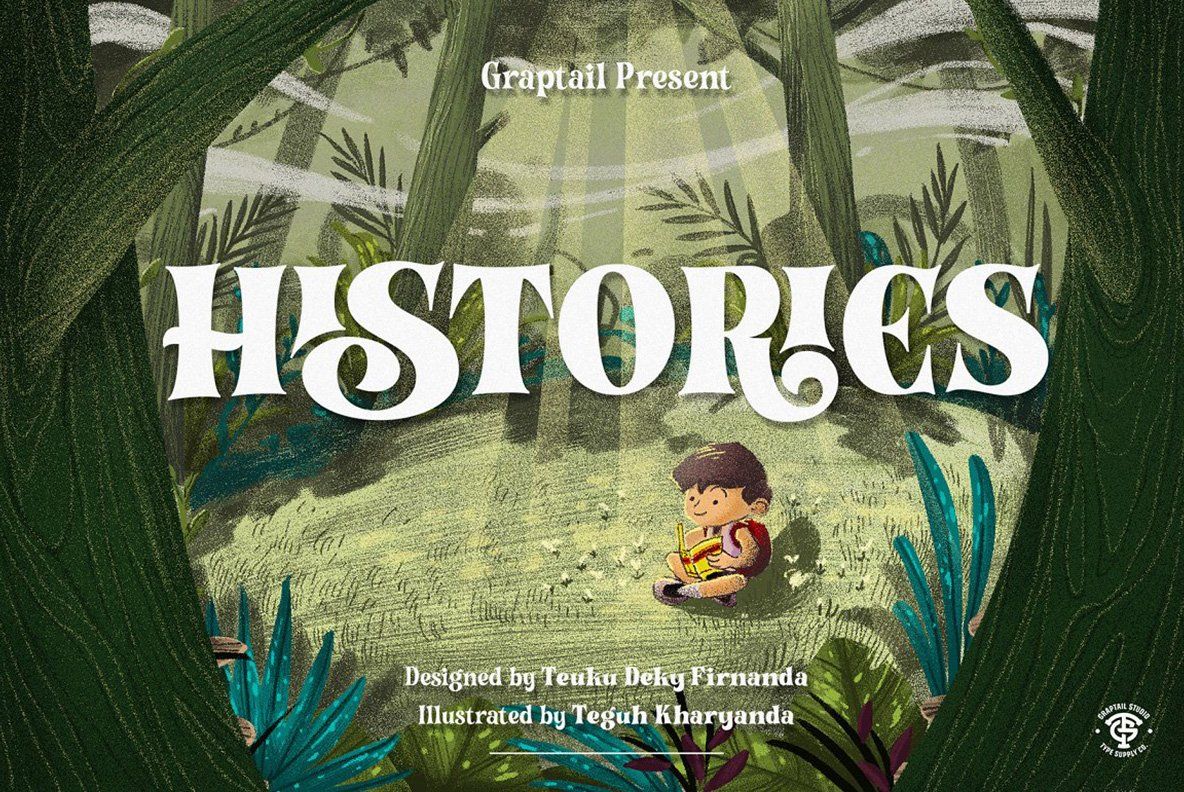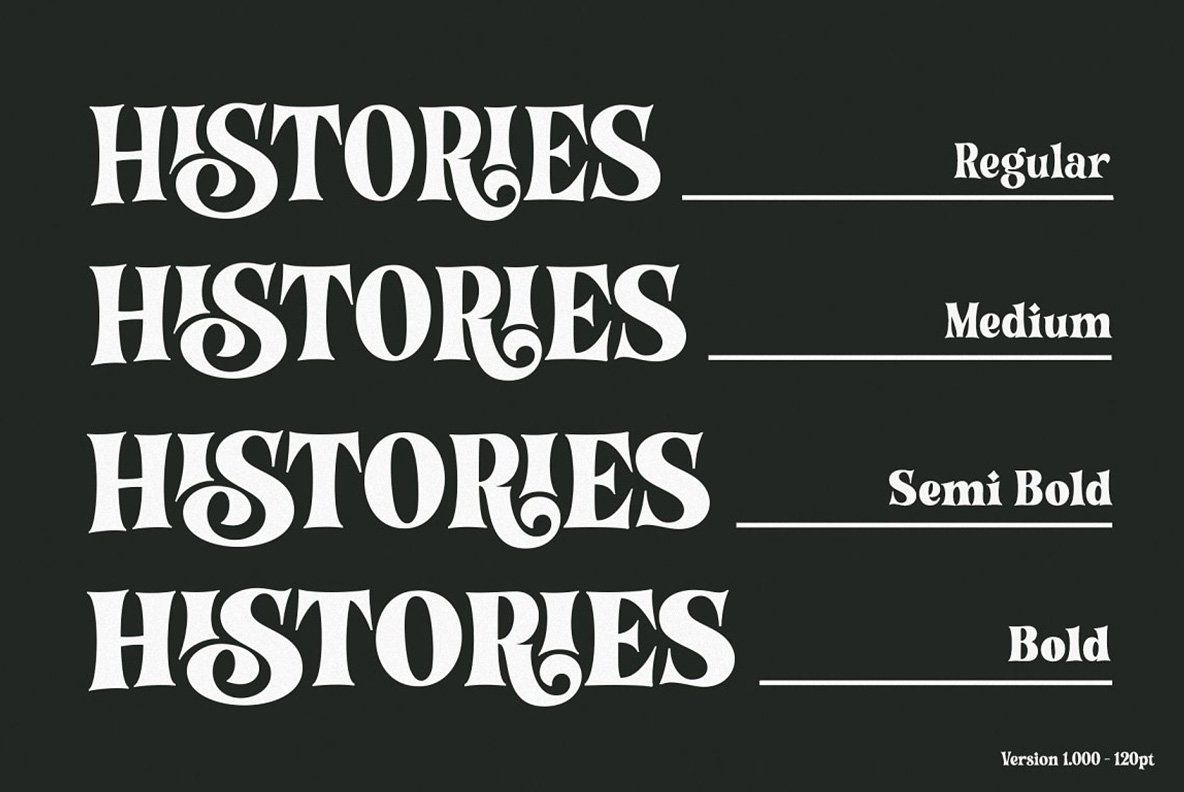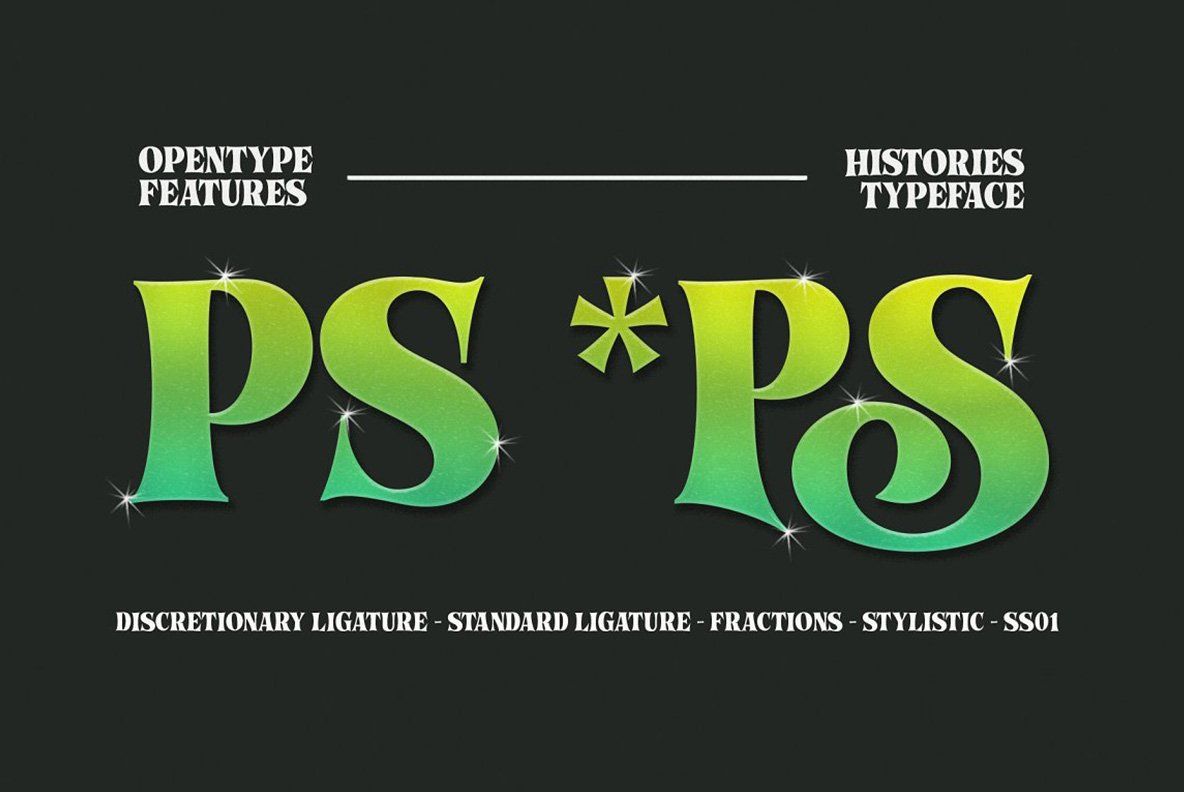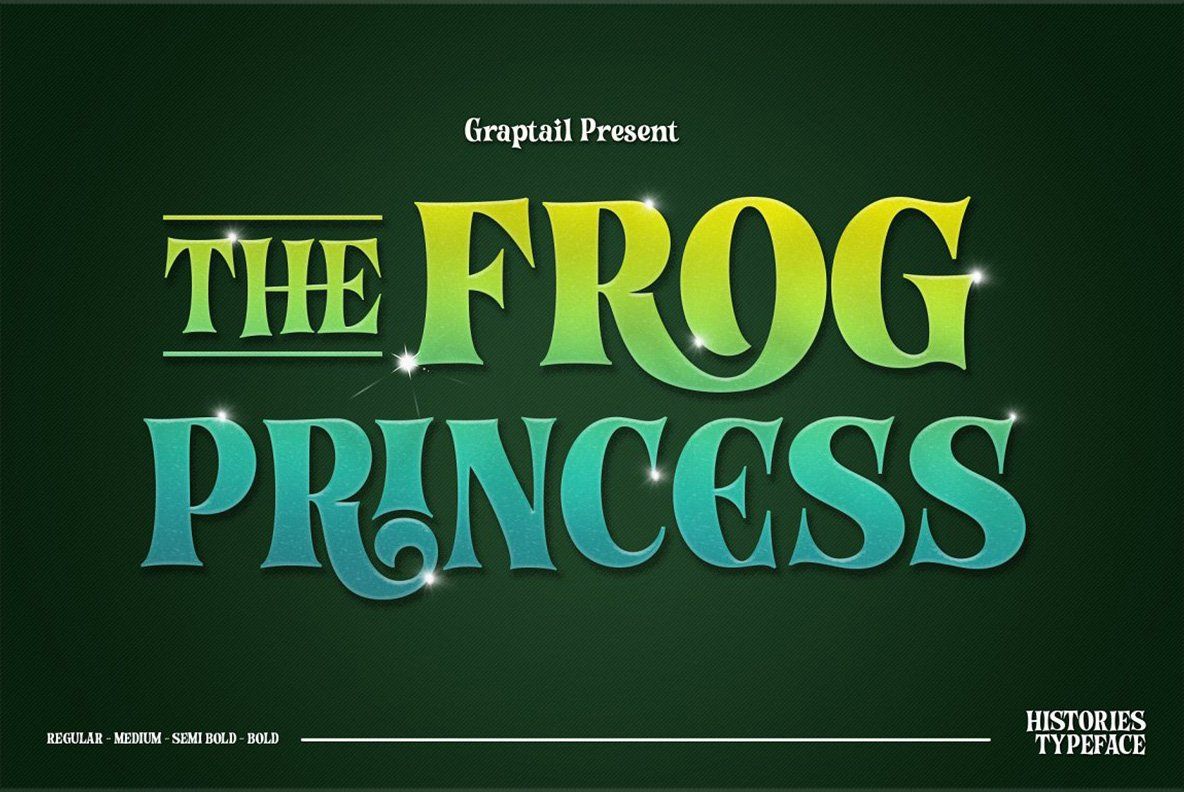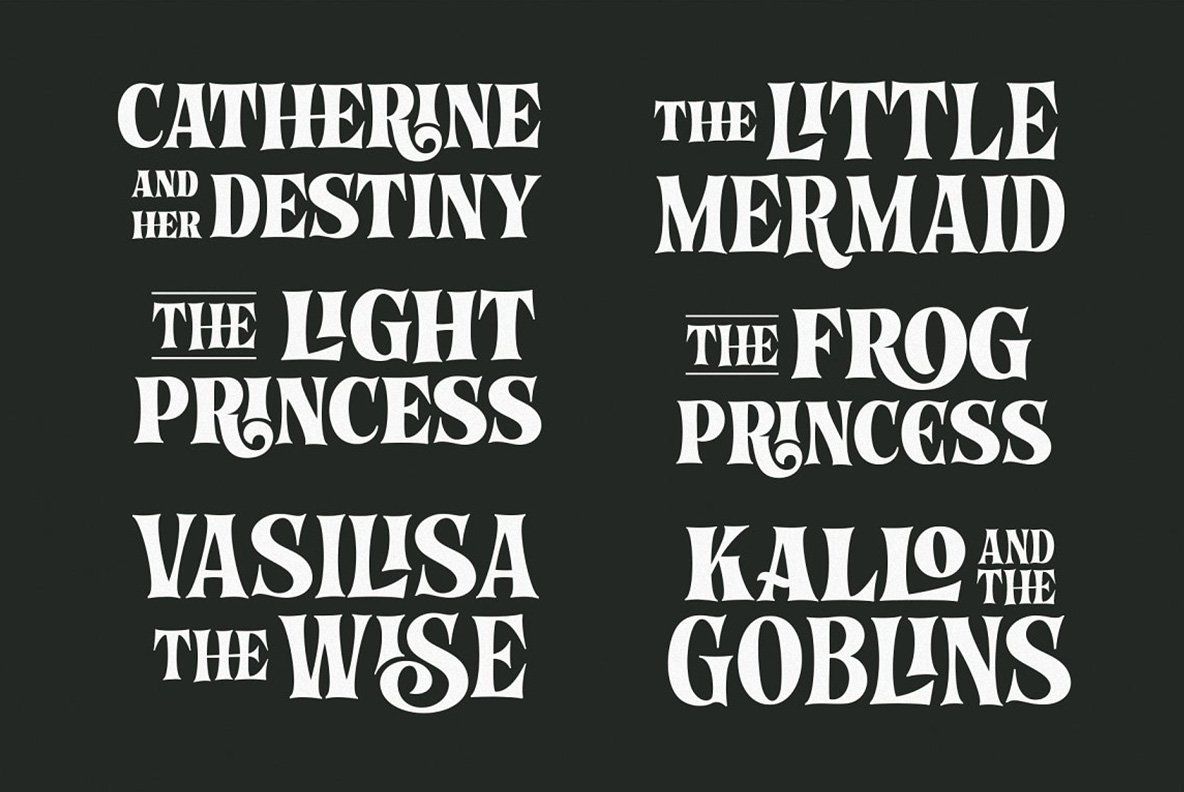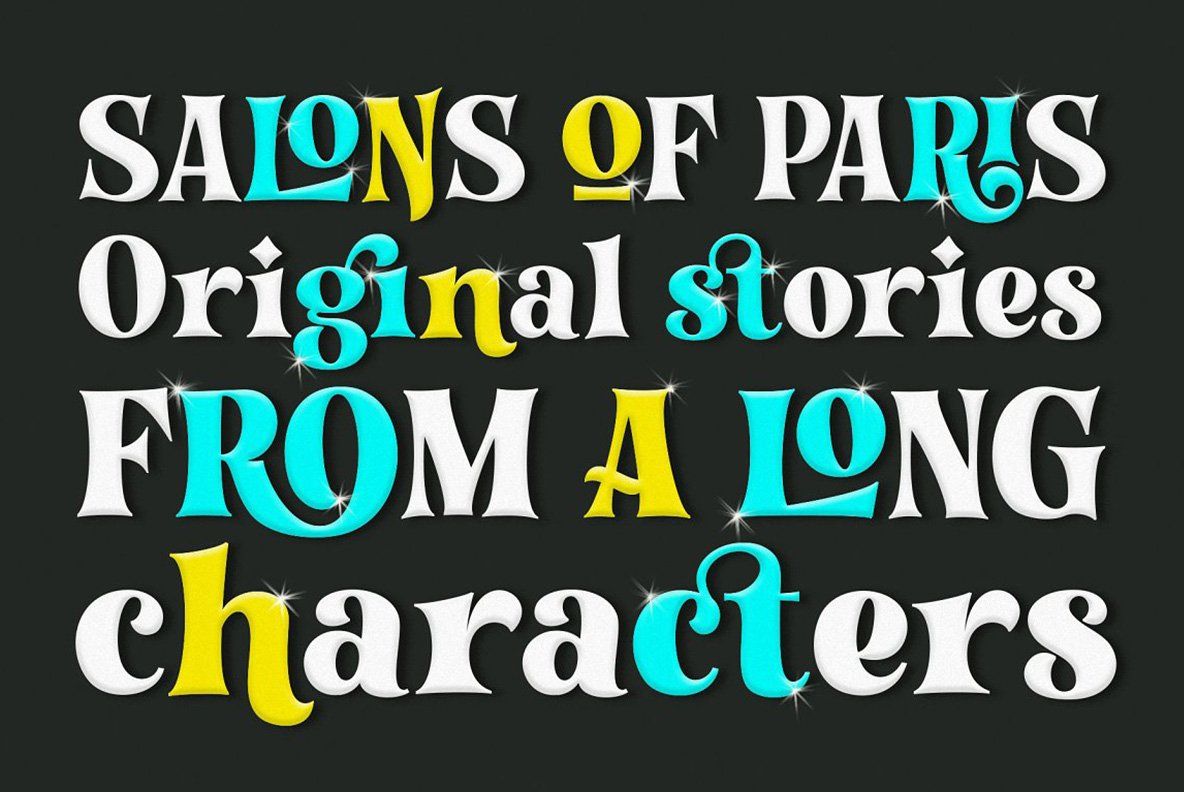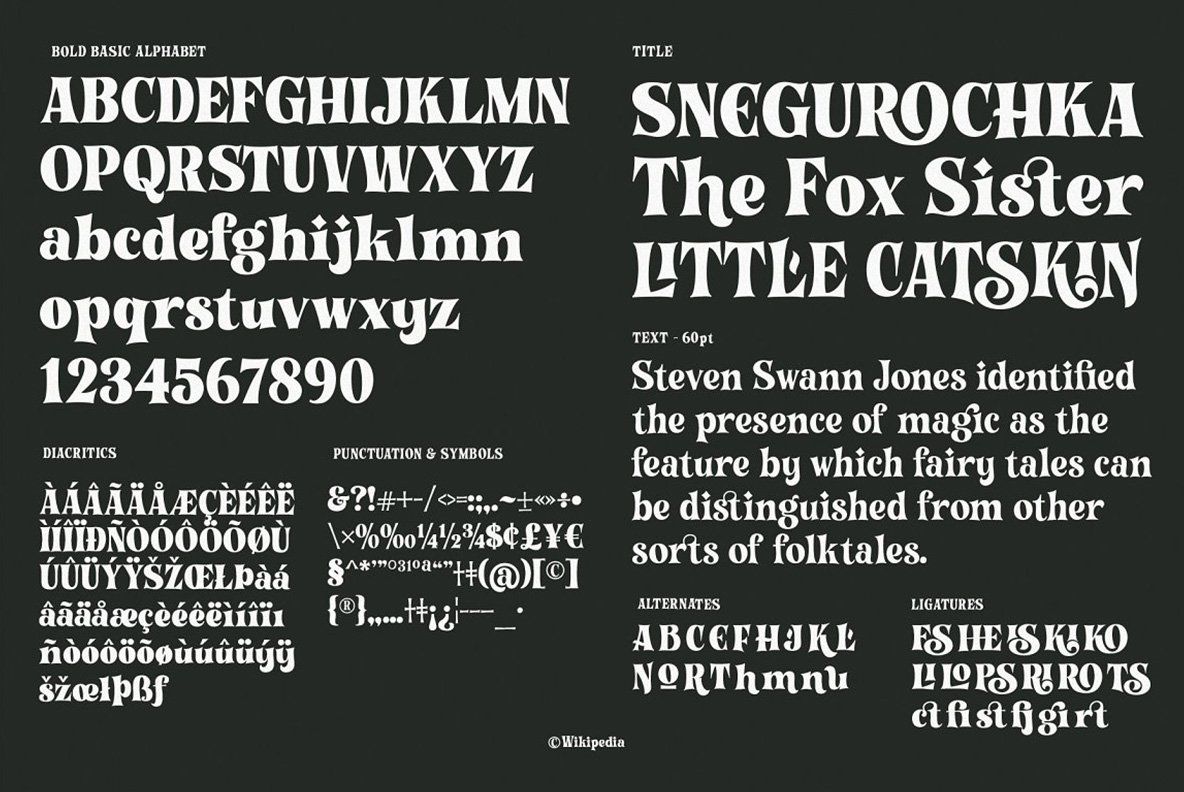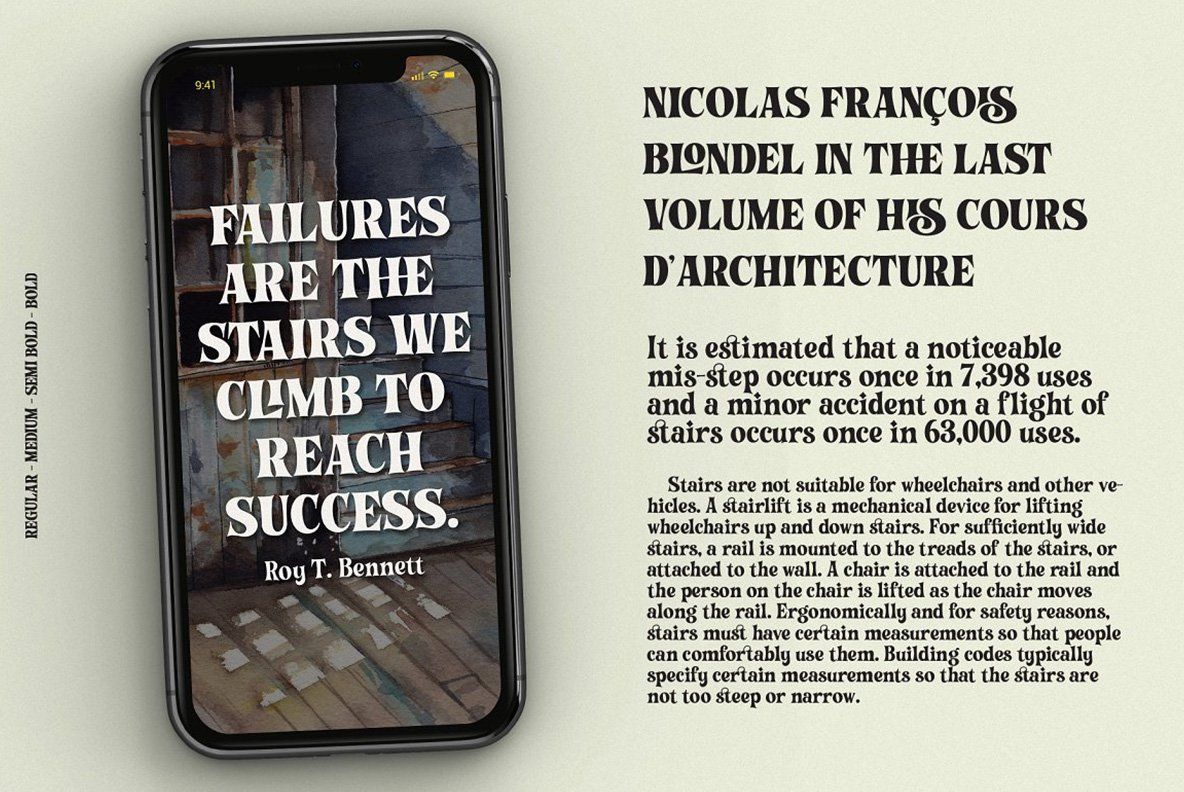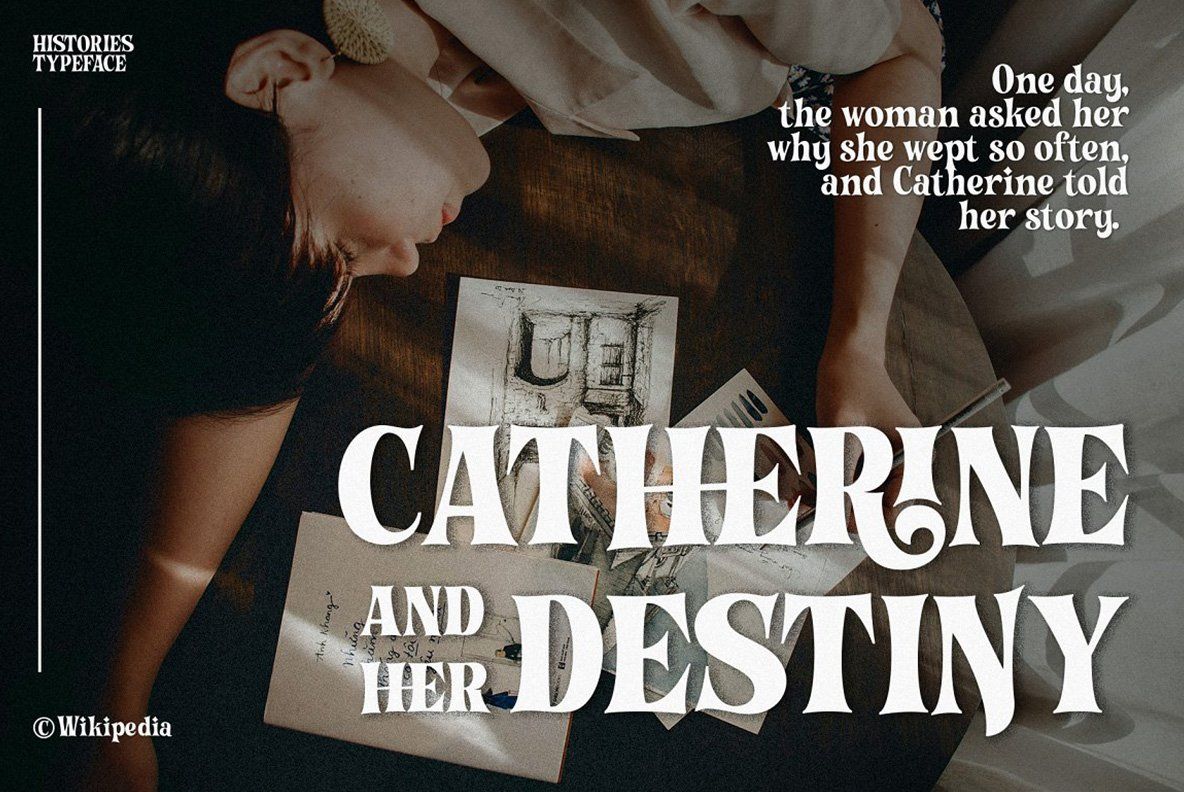
Since the beginning, “Histories” has been inspired by the shape of the letters displayed on the cover of fairy tale books or animated film covers. Likewise with the naming of the font "Histories" so that the message of the letters is conveyed. And this stylistic combination should also be reflected in the lowercase set which also allows to open up a spectrum of possible uses. Basic calligraphy represents a solid basis for the development of lowercase glyphs, ensuring proper interaction with uppercase letters.